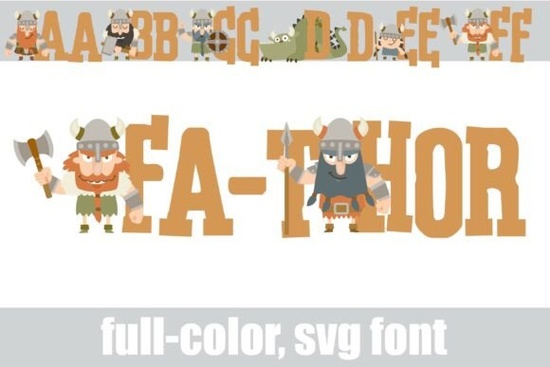
If you’ve been searching for a font that brings personality, color, and a touch of Viking adventure to your designs, Fa-thor Font might be exactly what you need. It’s not your average typeface it’s a full-color SVG font where each letter comes with its own little scene: cartoon Vikings with braided beards, wooden shields, and even dragons peeking out from behind the curves. The letters themselves are thick, blocky, and built to stand out perfect for grabbing attention without feeling overwhelming.
This font works especially well if you’re designing for fantasy-themed projects, youth gaming events, or anything that needs a bold, playful vibe. Think comic-con flyers, birthday invites with a Norse twist, or social media graphics that need to pop. Because it’s an SVG font, the colors and details are embedded right into the characters no need to layer images or worry about alignment. Just type, and the magic appears.
What kinds of projects does this font work best for?
Fa-thor shines when you want something fun but not childish, detailed but not cluttered. Here’s where it really fits:
- Book covers especially indie fantasy novels or children’s adventure stories.
- Event posters for gaming tournaments, themed parties, or local conventions.
- Social media headers Instagram stories, YouTube thumbnails, or TikTok titles that need instant visual impact.
- Merch designs think t-shirts, mugs, or stickers targeting fans of mythology or retro gaming aesthetics.
- Print-on-demand products because the font is self-contained (colors included), it’s easy to prep for upload without extra editing steps.
If you like Fa-thor’s vibe but want something softer or bubblier for different projects, you might also enjoy browsing Sweet Buble another SVG option that trades axes for pastels and dragons for doodles.
How do I use an SVG font like this?
SVG fonts work in most modern design software think Adobe Illustrator, Photoshop (with OpenType SVG support), Affinity apps, or even Canva Pro. You don’t need to install extra brushes or overlays. Just select the font, start typing, and the full-color illustrations appear as part of each letter. That means no clipping masks, no manual coloring, and no alignment headaches.
One thing to note: because these fonts contain complex graphics, they’re best used at larger sizes. Tiny text won’t show off the Viking helmets or dragon tails the way they’re meant to be seen. Stick to headlines, logos, or display text not body copy.
Will this slow down my workflow?
Not really. Once installed, Fa-thor behaves like any other font. The file size is a bit bigger than a standard OTF because of the embedded graphics, but unless you’re working on ancient hardware, you won’t notice a lag. For web use, keep in mind that SVG fonts aren’t universally supported in browsers so stick to print, static images, or PDF exports for client deliverables.
What if I want to customize the colors?
You can but it takes a few extra steps. Since the colors are baked into the SVG glyphs, you’ll need to convert the text to outlines first (in Illustrator or similar), then recolor manually. It’s doable, just not as quick as changing a fill swatch. If you’re looking for something more flexible out of the box, you might prefer layered fonts or brush sets where color layers are separate.
That said, Fa-thor’s earthy, weathered palette think mossy greens, rusty oranges, and charcoal grays is already well-balanced. Most users find they don’t need to tweak it. The colors feel cohesive and intentional, which saves time in the long run.
A quick tip before you download
Before committing, test how the font renders in your main design app. Some programs handle SVG fonts better than others. If you’re unsure, grab a free SVG font first (maybe try Sweet Buble for practice) to get comfortable with the workflow. Both fonts come from the same colorful fonts category, so switching between them later is seamless.
And remember while Fa-thor is packed with charm, it’s still a display font. Pair it with something clean and simple for body text. A neutral sans-serif like Montserrat or Lato lets the Vikings do the talking without competing for attention.
Ready to try it?
If you’re working on a project that needs personality, humor, and a dash of mythological flair, give Fa-thor Font a spin. It’s one of those tools that makes clients smile and audiences pause mid-scroll which, let’s be honest, is half the battle in creative work.